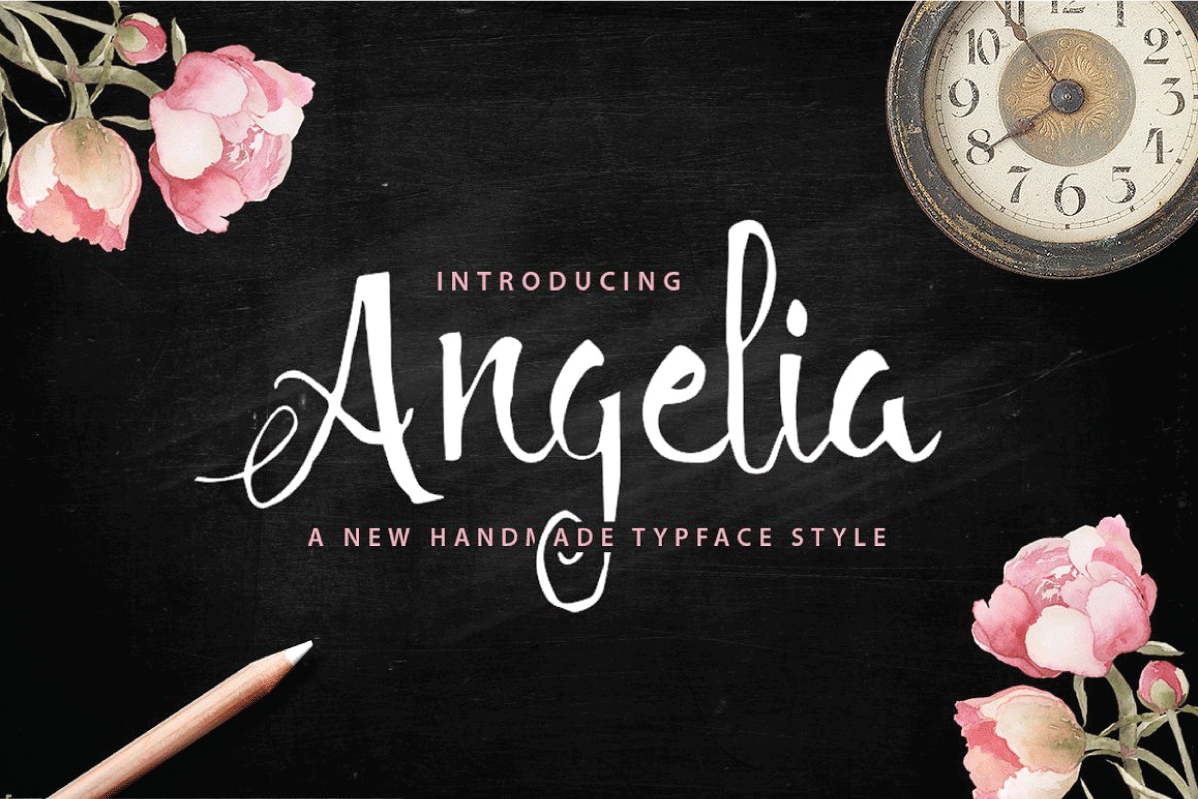
Angelia Script
Introducing Angelia Script
Angelia Script is a beautiful handmade script give the natural
looks. 282 glyphs and alternate character contain with opentype
features. Stylistic alternates, Ligature and more. You can access all
Great for Apparel Brand, any greeting cards, book cover, Painting
design style, or any design that needs natural and personal touch. Mix
and match the alternate characters to add an attractive message to your
design.